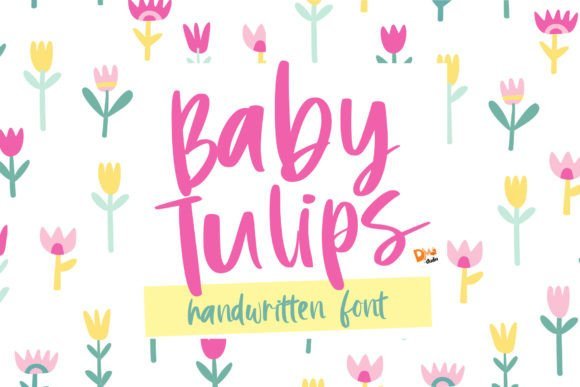
Unlocking the Whimsy of Baby Tulips Font
Have you ever stumbled upon a font that makes you smile? For me, it was the moment I laid eyes on the Baby Tulips Font. Its playful, handwritten charm instantly transported me to a field of vibrant tulips on a sunny spring day. The memory is still vivid, and it’s a testament to the font’s ability to evoke emotions and spark creativity.
Baby Tulips Font is a gorgeous, handwritten font that’s perfect for any purpose – from elegant invitations to whimsical children’s books. Its versatility is what makes it a valuable asset for designers, allowing them to add a personal touch to their projects. With its unique flair, Baby Tulips Font is sure to bring a touch of magic to any design.
Baby Tulips Font Key Features
- Font Family: Baby Tulips
- Unique Characteristics: Hand-drawn, elegant, and whimsical design; perfect for wedding invitations, baby shower invitations, and other special occasions
Baby Tulips Font Review
As a designer, I’ve had the pleasure of working with various fonts, and Baby Tulips is one of the most charming ones I’ve come across. ✨ The font’s playful and whimsical nature makes it perfect for creating eye-catching headings and titles. It’s also incredibly versatile, suitable for a wide range of design projects, from children’s books to wedding invitations.
One of the standout features of Baby Tulips is its uniqueness. ✨ It’s not your typical, run-of-the-mill font, and that’s what makes it so appealing. The font’s designer has done an excellent job of capturing the essence of the tulip, with its delicate petals and sturdy stem. The font’s curves and lines are well-balanced, making it easy on the eyes.
- Playful and whimsical nature
- Highly versatile
- Unique design
- Well-balanced curves and lines
- May not be suitable for formal or professional projects
- Some characters may be difficult to read at small font sizes
Overall, Baby Tulips is a delightful font that’s sure to add a touch of magic to any design project. While it may have some limitations, its unique charm and versatility make it a valuable addition to any designer’s toolkit.
Tips for Getting the Most Out of Baby Tulips Font
1. Use Baby Tulips Font for titles and headings to add a touch of elegance to your design.
2. Experiment with different font styles and sizes to create a visually appealing layout.
3. Pair Baby Tulips Font with other fonts to create a unique and eye-catching design.
1. Wedding invitations and stationery
2. Baby shower invitations and decorations
3. Floral-themed designs and illustrations
Alternatives to Baby Tulips Font
Carolyna Pro is a beautiful script font that offers a more elegant and sophisticated look compared to Baby Tulips Font. It’s ideal for use in wedding invitations, branding, and other high-end design projects. Unlike Baby Tulips Font, Carolyna Pro has a more refined and polished feel, making it suitable for formal and professional applications.
Pacifico is a stylish and modern script font that is perfect for use in designs that require a touch of elegance and sophistication. While it shares some similarities with Baby Tulips Font, Pacifico has a more refined and precise feel, making it ideal for use in branding, advertising, and editorial design. Pacifico is also more versatile and can be used in a wide range of design projects, from formal to casual.
Great Vibes is a beautiful and elegant script font that is perfect for use in designs that require a touch of sophistication and glamour. It’s ideal for use in wedding invitations, branding, and other high-end design projects. Unlike Baby Tulips Font, Great Vibes has a more refined and polished feel, making it suitable for formal and professional applications. Great Vibes is also highly customizable, making it easy to adjust to suit your design needs.
Alex Brush is a beautiful and elegant script font that is perfect for use in designs that require a touch of sophistication and refinement. It’s ideal for use in branding, advertising, and editorial design. Unlike Baby Tulips Font, Alex Brush has a more refined and precise feel, making it suitable for formal and professional applications. Alex Brush is also highly customizable, making it easy to adjust to suit your design needs.
Q: Is the Baby Tulips Font available in different font weights and styles?
Yes, the Baby Tulips Font comes in a range of font weights, from Light to Bold, as well as different styles, including Regular, Italic, and Script. You can access these variations by selecting the desired font weight or style in your design application.